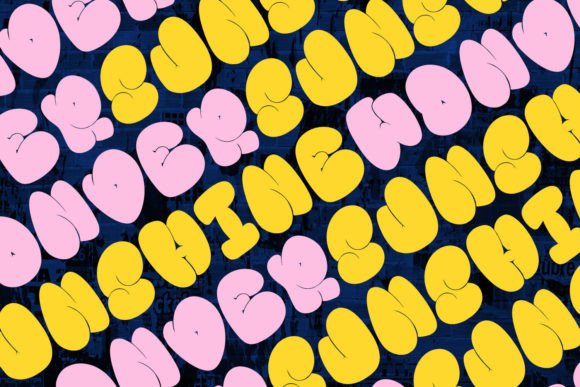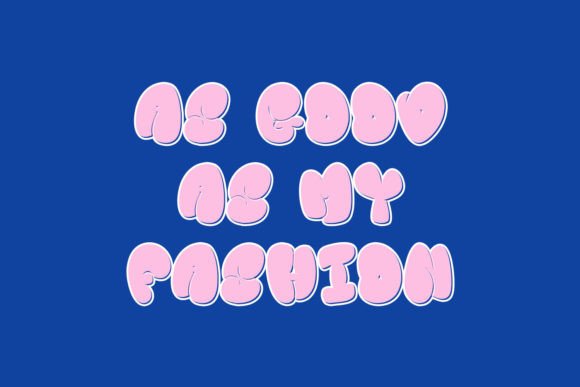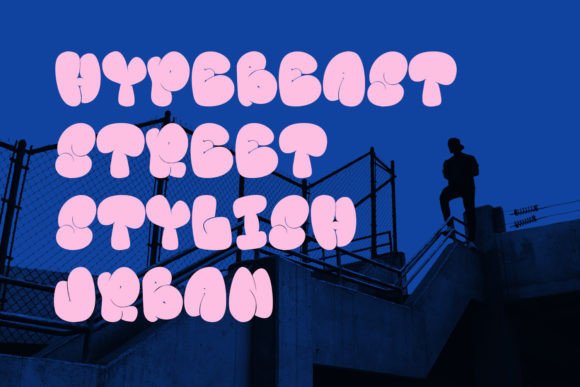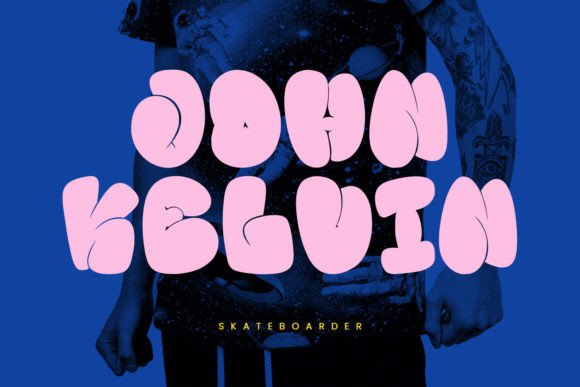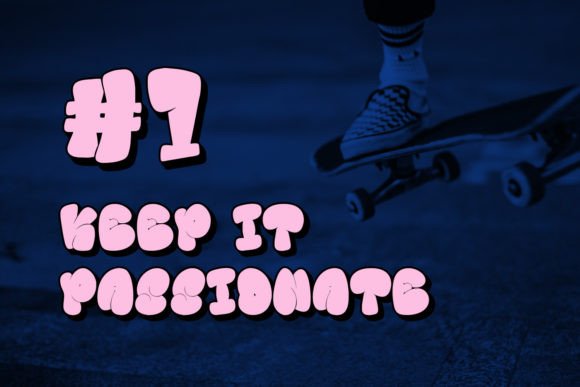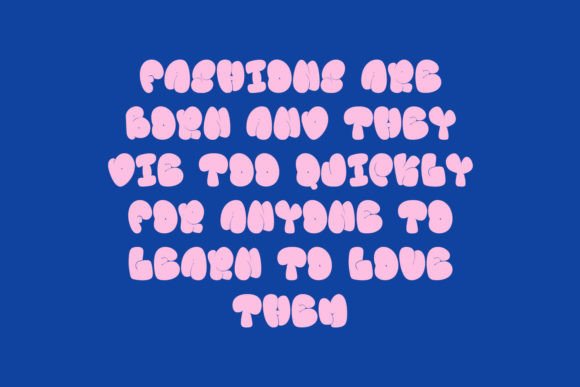
Introduction to Hippans Font
Hippans is a bold and expressive font designed for graffiti art.
Its strong, edgy letters are perfect for making your messages stand out with urban style and creativity Whether on posters, street art, or digital designs, Hippans brings a vibrant and energetic feel to your words.